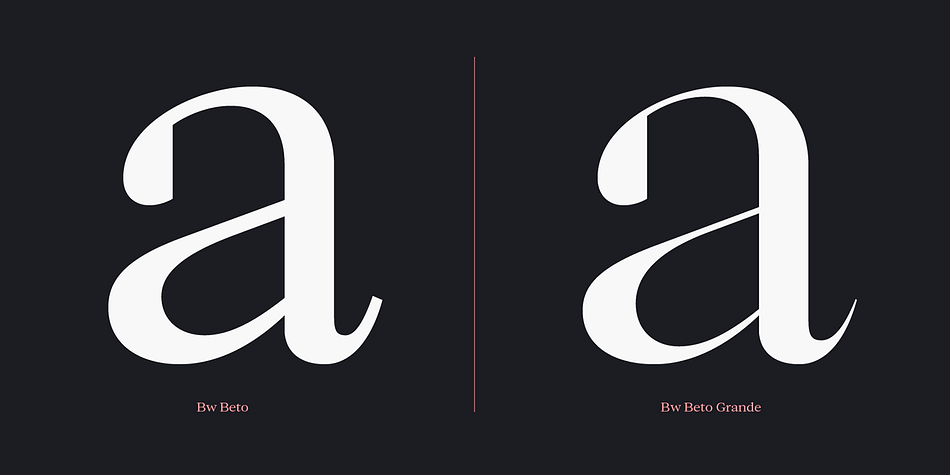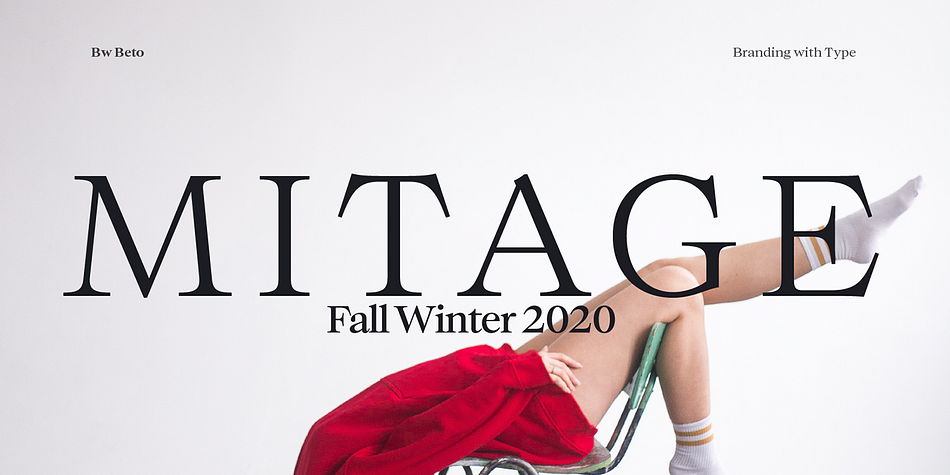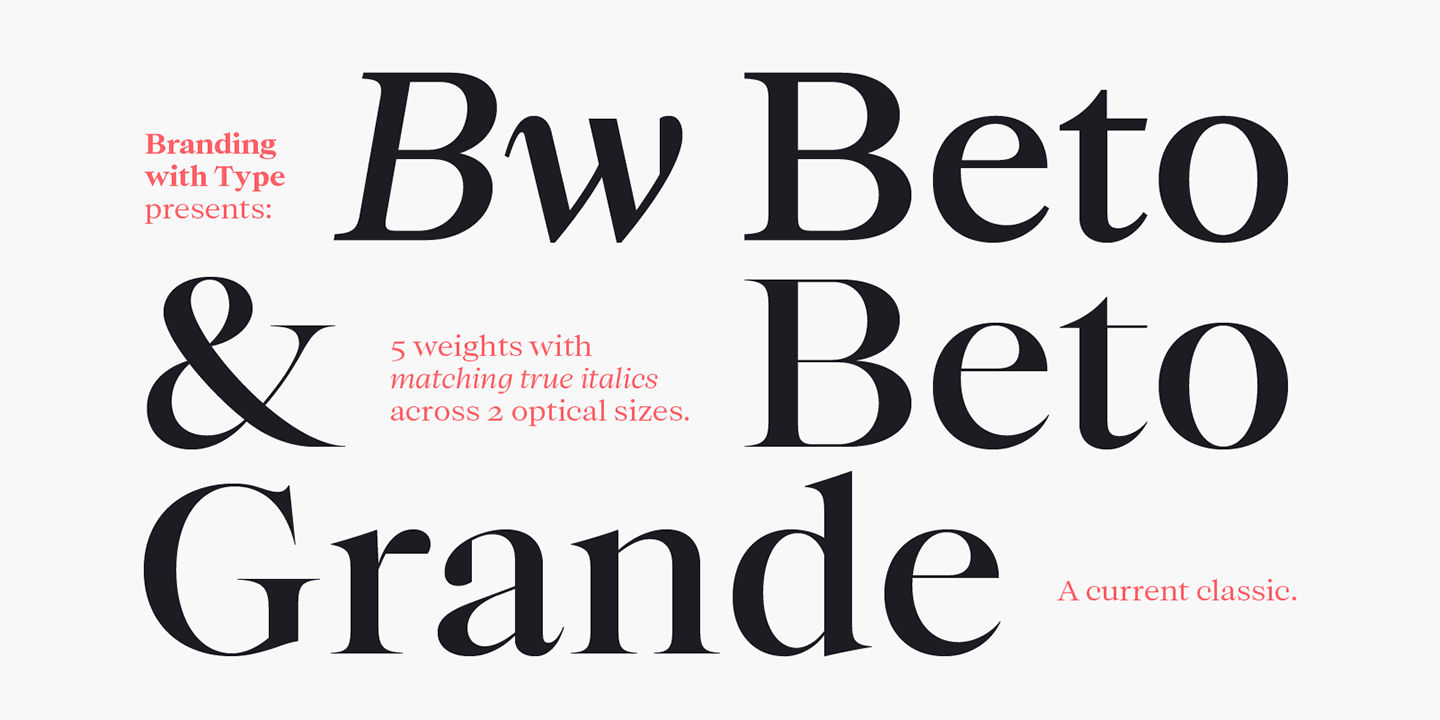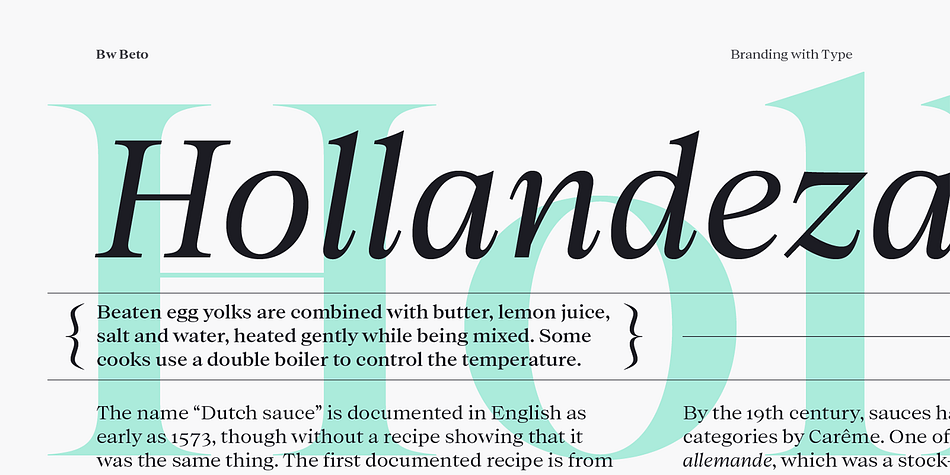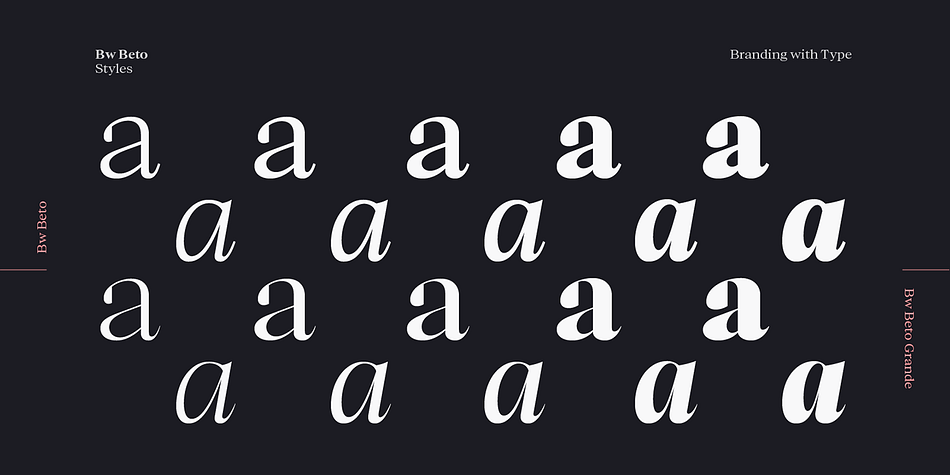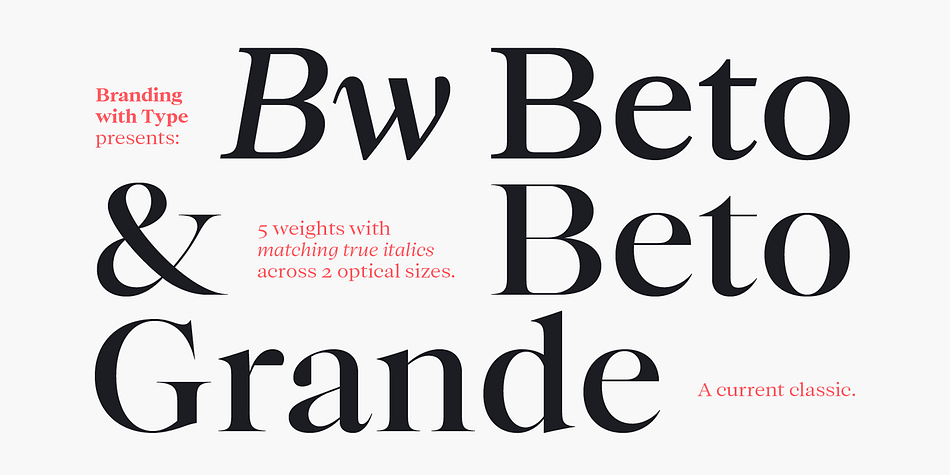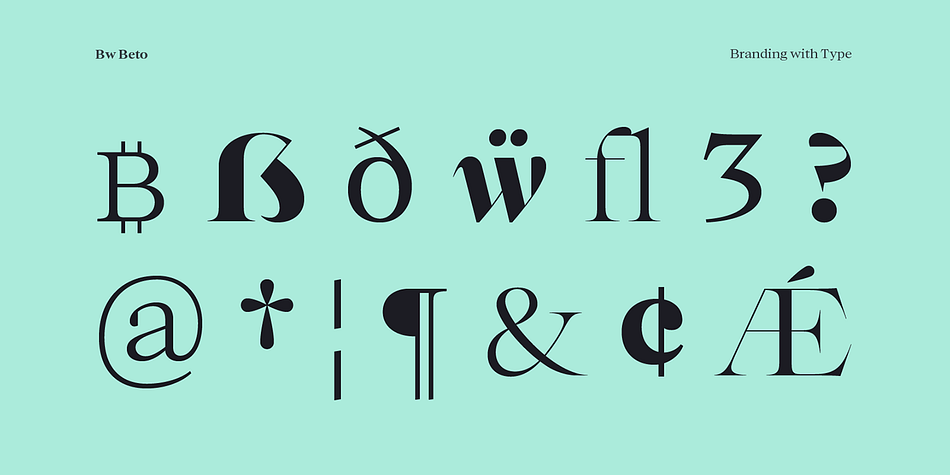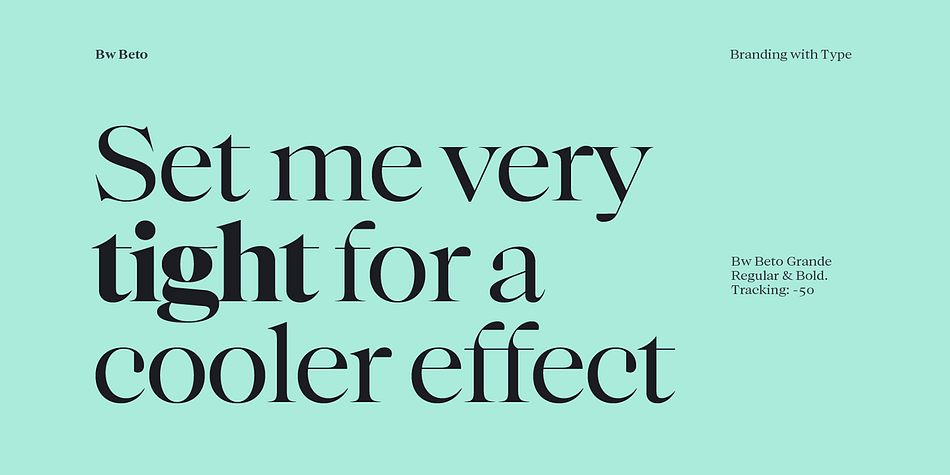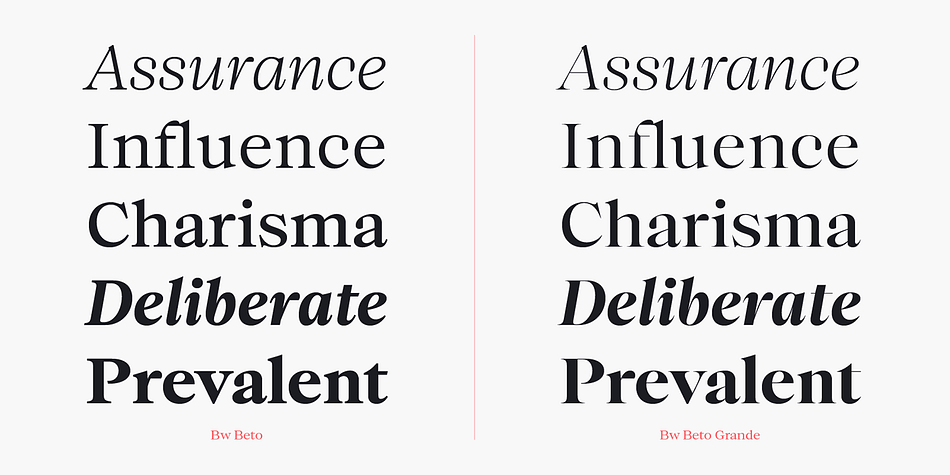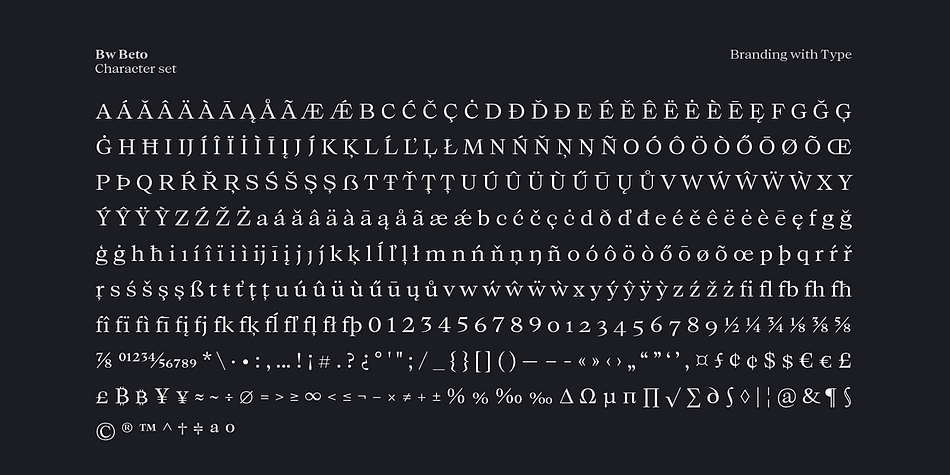
Designed by Alberto Romanos, Bw Beto is a display serif and serif font family. This typeface has twenty styles and was published by Branding With Type.
Designed by Alberto Romanos, Bw Beto borrows cues from over 300 years of serif design evolution; from early renaissance typefaces to transitional models from the 18th Century, all filtered and interpreted without falling for design dogmas. Only with contemporary graphic branding functional and aesthetic needs in mind. It’s available in 2 optical sizes containing 5 weights with matching true italics each.
| Foundry | Branding With Type |
| Styles | Display Serif, Serif |
| Designer | Alberto Romanos |